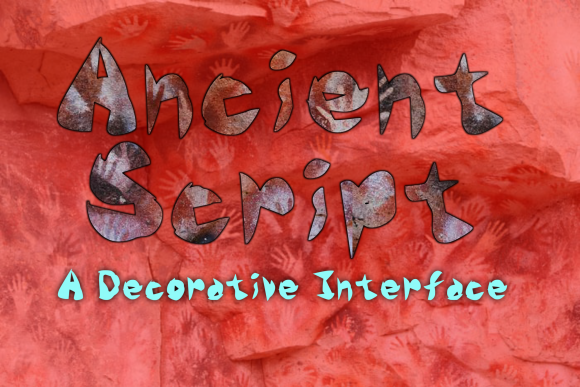
Ancient Script Font
At first glance, Ancient Script's captivating aura will leave you spellbound. Its intricate characters possess a timeless charm, reminiscent of ancient scrolls and mystical incantations. Whether you're an imaginative artist or a creative professional, this font is your gateway to a world of boundless inspiration.
Ancient Script's versatility knows no bounds. Its enchanting essence effortlessly complements whimsical cartoon designs, bringing them to life with a touch of playful magic. For children's games, its delightful curves and loops create an atmosphere of cheerful wonder. Its refined elegance also graces book covers, captivating the reader's imagination before they even delve into the written word.
Need a font that commands attention? Look no further. Ancient Script's bold and unforgettable presence makes it the perfect choice for titles, brand names, and posters. Its ability to evoke strong emotions ensures that your message will resonate deeply with your audience.
So, if you seek a font that empowers your creativity and sets your designs apart from the ordinary, Ancient Script awaits you. Its enchanting aura will transport you to a realm of artistic excellence, where imagination knows no limits. Join the ranks of creative visionaries who have embraced Ancient Script's undeniable charm.